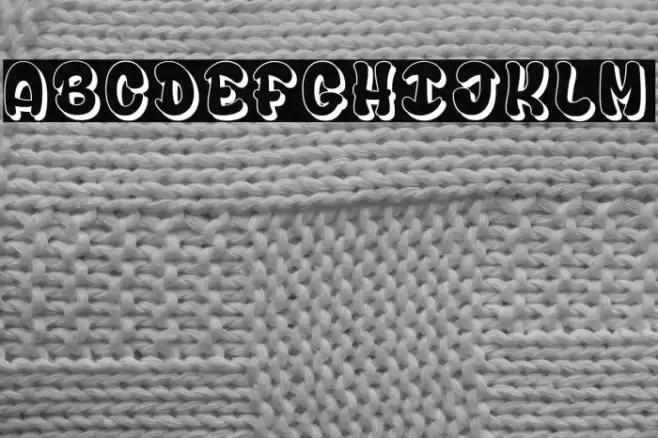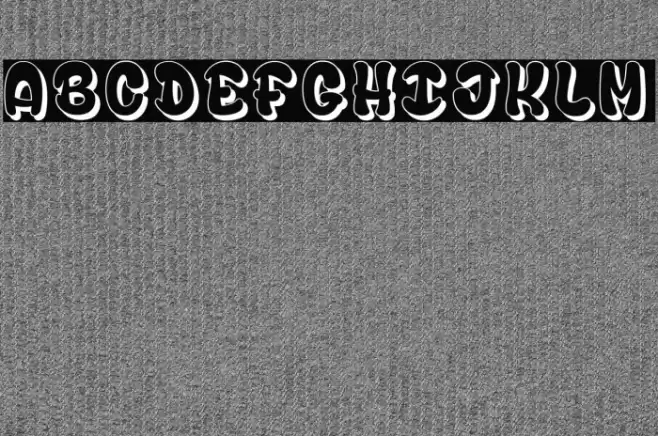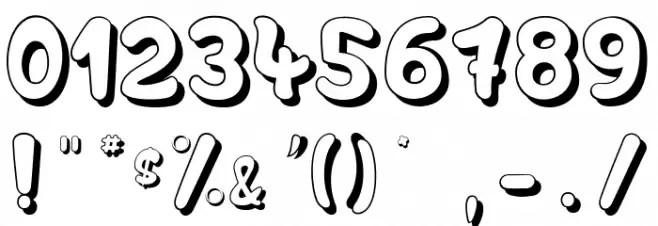
This playful and whimsical font features bold, rounded characters with a bubbly appearance, reminiscent of soap bubbles. The letters are outlined with a thick black border that enhances their visibility and adds a cartoonish flair. The font maintains a consistent weight throughout, giving it a uniform and cohesive look. Its playful nature makes it ideal for projects that require a fun and lighthearted touch. The characters are evenly spaced, ensuring readability while maintaining the font's distinctive style. This font is perfect for children's materials, party invitations, or any design that aims to convey joy and creativity.
A playful, bubbly font with bold, rounded characters and a thick outline from Uncategorized fonts.
- Proposed Projects: Ideal for children's books, party invitations, playful branding, and creative posters.
- Overall Style: Playful, Whimsical